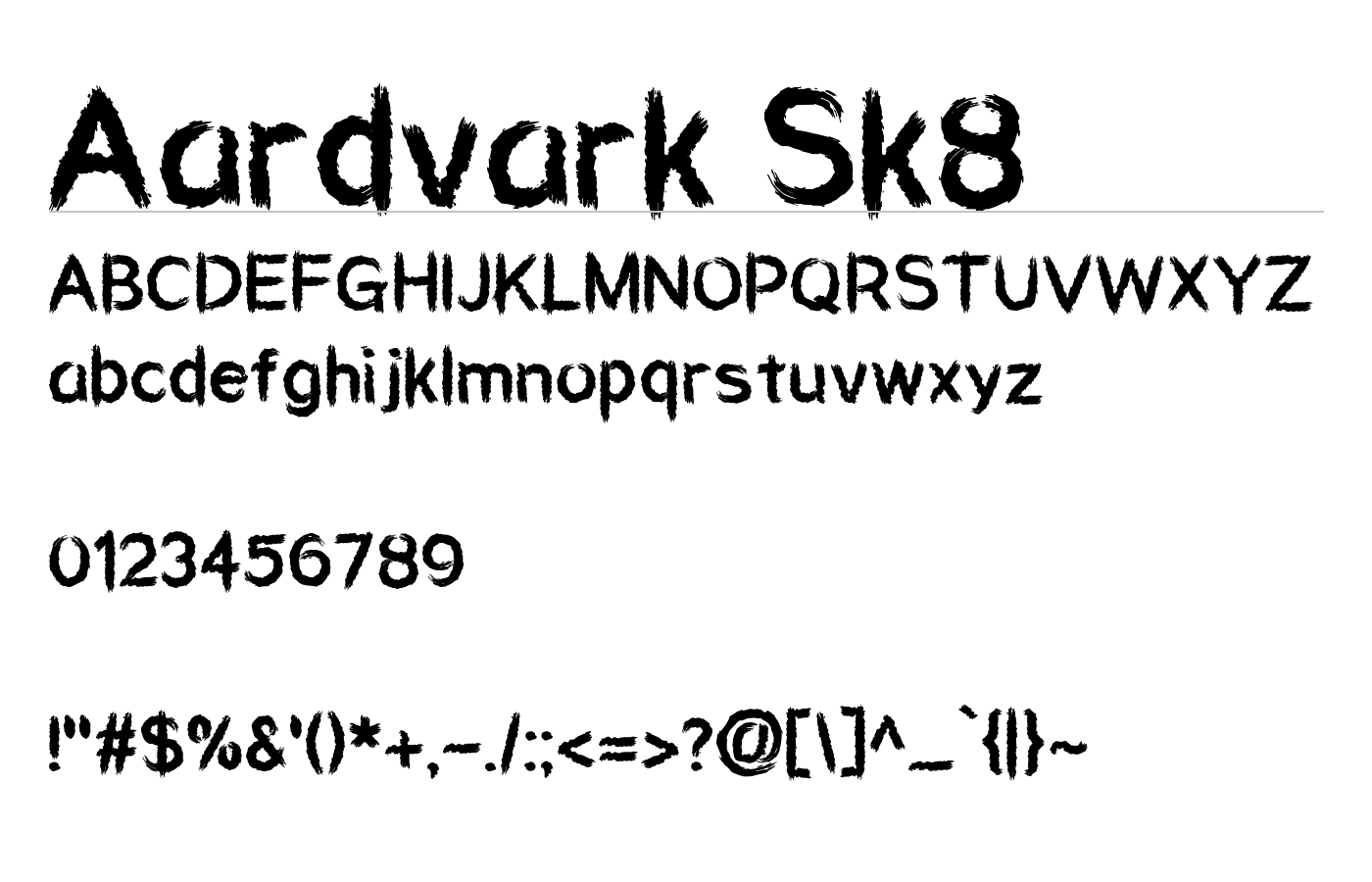
Aardvark Sk8 is a bold, brush-style sans serif font with a rough, textured appearance that mimics hand-painted strokes. Its lively and informal character makes it perfect for creative, youthful, and energetic designs like posters, logos, and branding for sports or streetwear. The font’s playful yet strong personality adds a dynamic edge without sacrificing readability.
Aardvark Sk8 Font
About Aardvark Sk8 Font
| Font family | Aardvark Sk8 Font |
| Designer | Dan Johnston |